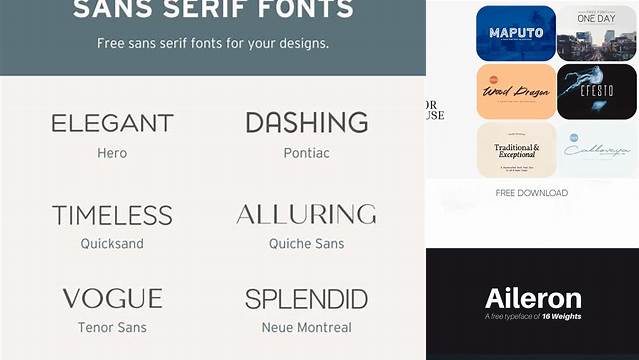
Free Sans Serif Fonts For Commercial Use: Your Ultimate Guide
Are you on the hunt for some awesome sans serif fonts that you can use for commercial projects without breaking the bank? You've come to the right place, my friends! Finding the perfect font can be a real game-changer for your brand, website, or any creative endeavor. But, let's be honest, those font licenses can sometimes be a killer. That's why understanding the world of sans serif fonts free commercial use is so important. This guide is your ultimate resource, covering everything from where to find these gems to how to make sure you're staying on the right side of the law. So, buckle up, and let's dive in!
1. What Exactly is a Sans Serif Font?
Okay, first things first, what even is a sans serif font? Well, think of it this way: 'sans' is French for 'without'. So, a sans serif font is a font without those little extra strokes, or 'serifs,' at the ends of the letters. These fonts typically have a clean, modern look, which makes them super popular for everything from website headlines and body text to logos and print materials. Sans serif fonts often give off a sense of simplicity, clarity, and modernity, making them a fantastic choice for a wide range of design projects. They're incredibly versatile and can be used in both professional and more casual settings, depending on the specific style of the font. Whether you're a seasoned designer or just starting out, knowing the basics of font styles is crucial.
These fonts are characterized by the absence of serifs, making them stand out from their counterparts, the serif fonts. Serifs are the small decorative strokes found at the end of the main strokes of letters in fonts like Times New Roman. In contrast, sans serif fonts like Arial, Helvetica, and Open Sans have clean, straight lines. This difference is more than just aesthetic; it affects readability and the overall impression a design conveys. This difference in appearance makes sans serif fonts often associated with a more contemporary or minimalist aesthetic, which is why they're frequently employed in modern branding and digital design. They are especially popular for on-screen display due to their clarity at various sizes and resolutions. Understanding these characteristics is key to selecting the right font for your project, keeping in mind the visual impact each font family provides.
For instance, imagine a website for a tech startup. A sans serif font would likely be a better fit, conveying a sense of innovation and cutting-edge technology. On the other hand, a serif font might be more suitable for a traditional law firm's website, communicating authority and reliability. The choice between the two depends heavily on the brand's values, the target audience, and the overall message you want to communicate. Keep in mind that the correct font choice enhances your message, creating a powerful visual impact that helps you build a strong brand identity.
2. Why Choose Sans Serif Fonts for Commercial Use?
So, why all the fuss about sans serif fonts in the commercial world? Well, they're super readable, especially on screens. In today's digital age, that's a major win. People are constantly scrolling through websites, reading emails, and looking at content on their phones. You need a font that's easy on the eyes and doesn't make people squint. Sans serif fonts are great for this because their simple design makes them very clear, even at small sizes or lower resolutions. Their clean lines and lack of serifs help reduce visual clutter, making it easier for readers to scan and absorb information quickly. It is important to know that a well-chosen font will keep your audience engaged and maintain their attention, making your content more effective.
Another great thing about sans serif fonts is that they often come across as modern and approachable. This makes them perfect for brands trying to project a contemporary image, reaching younger audiences, or communicating a sense of innovation. You’ll find them used everywhere, from tech companies to fashion brands. The versatility of sans serif fonts lets them adapt to any design project. From website design to print materials, their adaptability makes them the first choice of many professionals. By using these fonts, you can ensure your branding looks fresh and current, which helps you stay relevant in today's ever-changing market.
Additionally, sans serif fonts can provide a strong, clean foundation for your designs. This enables other design elements, like images and colors, to shine. Because sans serifs have an uncomplicated structure, they create a subtle yet impactful visual hierarchy that keeps your audience's focus on the content. This way, you can maintain a cohesive, stylish look while communicating your message with maximum clarity. They are an excellent option for any commercial project requiring professionalism and simplicity. Choosing these types of fonts will always give you a good impression.
3. Finding Reputable Sources for Free Sans Serif Fonts (Commercial Use)
Alright, so where do you actually find these sans serif fonts that you can use for commercial purposes without getting into legal trouble? This is where things get interesting. It's super important to choose your sources carefully, guys. There are many websites where you can download fonts, but not all of them offer licenses that allow for commercial use. You always want to make sure you're getting your fonts from a trusted source. This helps you avoid copyright issues and makes sure you can use the fonts legally. Doing your research and checking the licensing terms of each font will keep your creative projects safe and secure. Being cautious about font sources is key to doing the job right.
Some of the best places to start your search for sans serif fonts free commercial use include Google Fonts, Font Squirrel, and DaFont. These platforms offer a wide variety of high-quality fonts, and the best part is that they have clear licensing information. Google Fonts, for example, is a go-to resource for many designers. They provide a vast library of open-source fonts that are free for both personal and commercial projects. The licensing details are easily accessible and easy to understand. Font Squirrel is another excellent option. They curate a collection of free fonts and even offer a